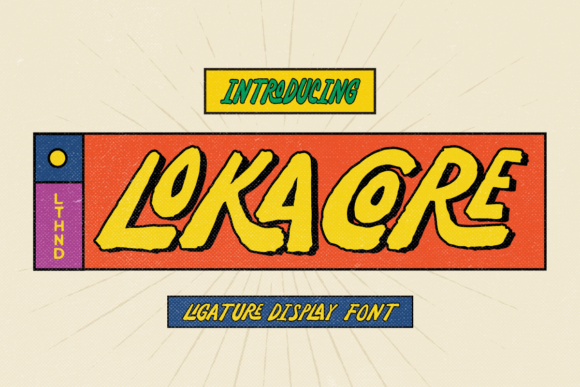
Embark on a Typographic Expedition with Lokacore, the Display Font that Unleashes Your Imagination!
In the realm of digital artistry, where creativity knows no bounds, Lokacore emerges as a typographic masterpiece that ignites your imagination and transforms your design visions into captivating realities. This modern display font, meticulously crafted by the talented letterhend, possesses an aura of fun and playfulness that breathes life into your projects, beckoning you to explore the boundless possibilities of storytelling.
Picture yourself crafting a children's book that transports young readers into a fantastical world, where Lokacore's whimsical characters dance across the pages, captivating their hearts and imaginations. Envision designing a storybook that comes alive with Lokacore's vibrant energy, its playful curves evoking a sense of wonder and adventure. Create captivating comic books that burst with vibrancy, where Lokacore's dynamic strokes bring your narratives to life, immersing readers in a realm of boundless creativity.
Lokacore's versatility extends beyond the realm of children's literature, seamlessly adapting to a myriad of creative endeavors. Bring movie posters to life with Lokacore's bold and energetic strokes, capturing the essence of cinematic masterpieces. Craft game titles that exude excitement and intrigue, where Lokacore's playful nature sets the stage for epic adventures. Design logos that radiate warmth and approachability, establishing a connection with your audience through Lokacore's friendly and inviting demeanor.
With Lokacore as your typographic companion, you possess the power to transform ordinary designs into extraordinary expressions of creativity. Unleash your inner storyteller, captivate audiences with your enchanting narratives, and leave an indelible mark on the world of design. Lokacore awaits you, ready to embark on a journey of boundless imagination and creative fulfillment.Embrace the boundless creativity and storytelling prowess that Lokacore brings to your design arsenal, and witness the transformation of your projects into captivating masterpieces.